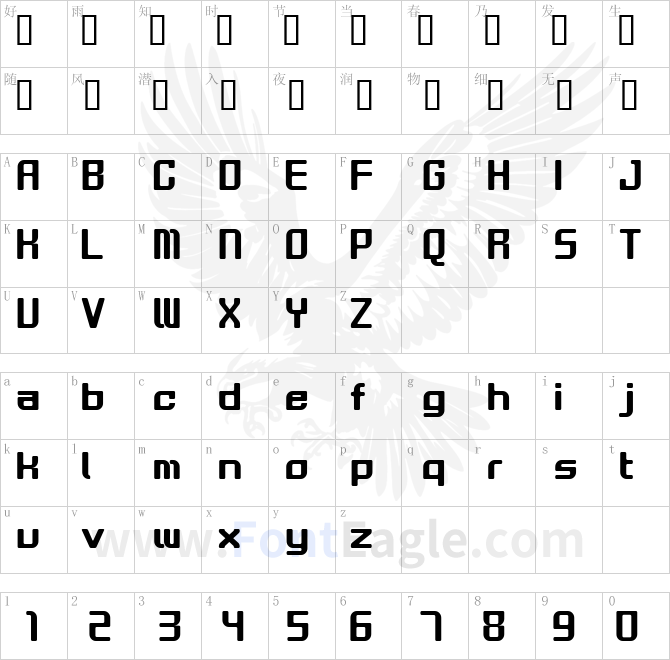
- Font name:GAU_font_modern
- Font Subfamily:SemiRound
- Font Subfamily ID:Macromedia Fonographer 4.1J GAU_font_modern SemiRound
- Font Full Name:GAU_font_modern SemiRound
- Font Version:Macromedia Fonographer 4.1J 00.10.7
- Postscript:GAUfontmodernSemiRound